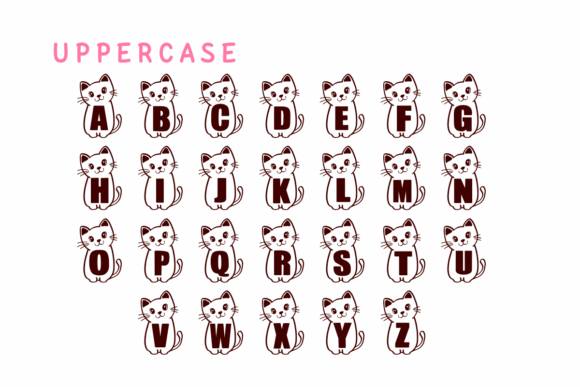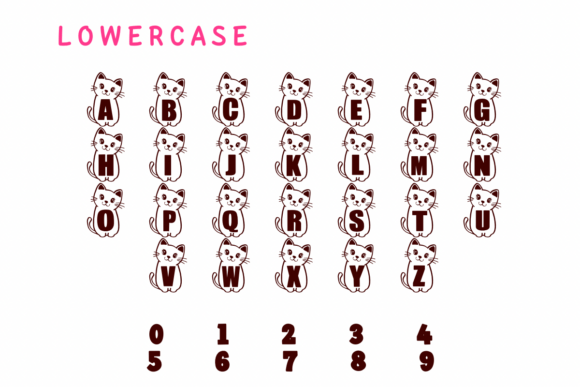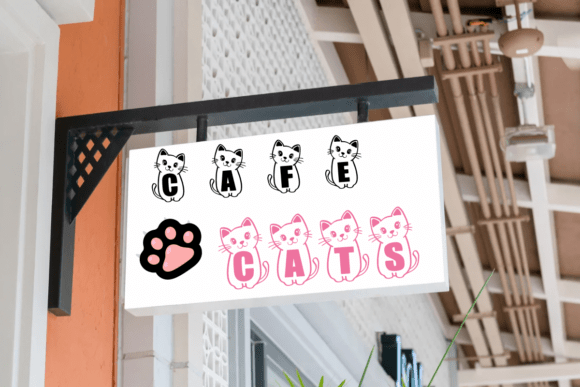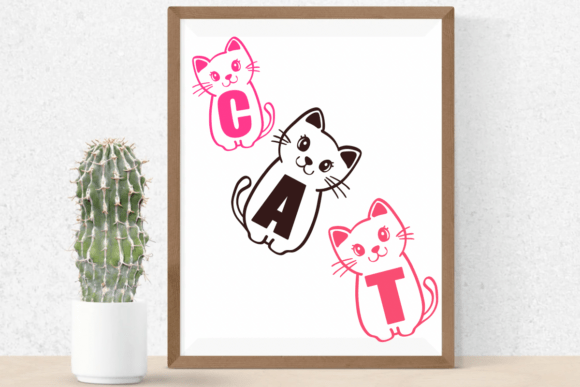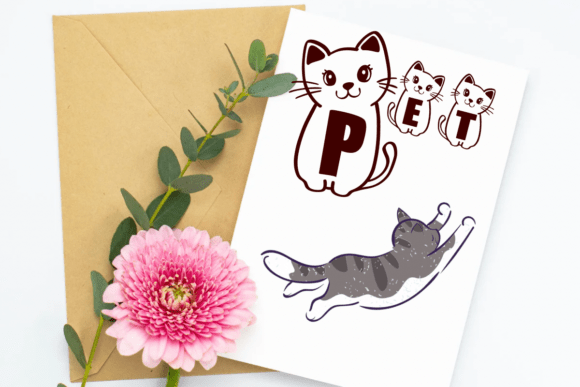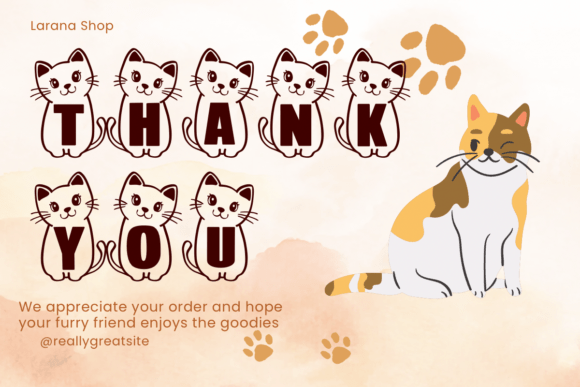
The Purrfect Font: A Deep Dive into Cartoon Cat Font
I’ll never forget the time I was working on a project for a client’s children’s book. I had spent hours agonizing over the illustrations, but when it came to choosing a font, I was stuck. That’s when I stumbled upon the Cartoon Cat Font. It was love at first sight! ✨ The playful, whimsical design instantly captured the tone of the book, and I knew I had found the perfect fit. In this article, we’ll explore the world of Cartoon Cat Font, and I’ll share my honest review, practical uses, and expert tips on how to make the most of this delightful font.
- 🎉 Playful and Whimsical Design: Cartoon Cat Font is a decorative font that exudes fun and playfulness, making it perfect for projects that require a lighthearted touch.
- ✅ Versatility: This font can be used for a wide range of projects, from taking notes and writing diaries to creating greeting cards, banners, and social media posts.
- 💕 Easy to Read: Despite its decorative nature, Cartoon Cat Font is surprisingly easy to read, making it a great choice for body text.
While Cartoon Cat Font is an amazing font, it’s not without its quirks. 🤔 Here are a few things to keep in mind:
- ⚠️ Limited Use in Formal Projects: Due to its playful nature, Cartoon Cat Font may not be the best choice for formal projects or professional documents.
- ⚠️ Glyph Limitations: Some users have reported that the font could benefit from more glyphs and special characters.
The creator of Cartoon Cat Font is a talented designer who’s passionate about creating fun and playful typography. Inspired by the world of cartoons and comics, they designed this font to bring a touch of whimsy to everyday designs. 🤩
| Author | PraewDesigns |
Q: What is Cartoon Cat Font?
A: Cartoon Cat Font is a decorative font that’s perfect for adding a playful touch to your designs.
Q: Is Cartoon Cat Font easy to read?
A: Yes, despite its decorative nature, Cartoon Cat Font is surprisingly easy to read, making it a great choice for body text.
Q: Can I use Cartoon Cat Font on social media?
A: Absolutely! Cartoon Cat Font is perfect for creating engaging social media posts and stories.